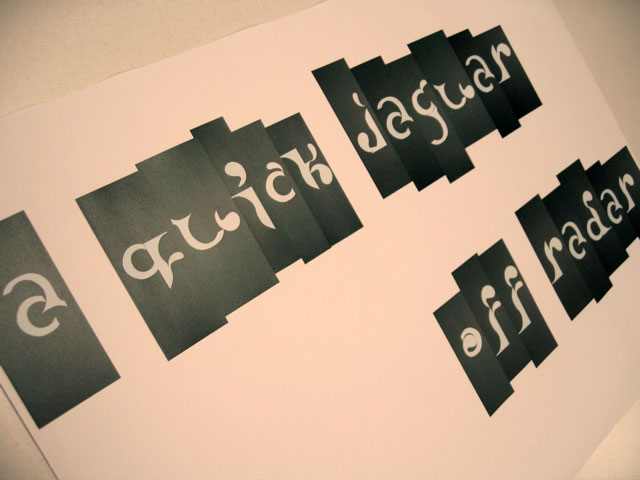
great job! i'm from argentina and i love this works. I'm studying graphic design here and i love that this kind of works we can do it here in argentina
You are a genius.
This work is truely stunning!!
the letters "O" "U" "V" "W" are very hard to read.
nice stuff in theire love it
Amazing. I love these!!
I love your work, your very talented :)
S I M P L Y G R E A T ! ! !